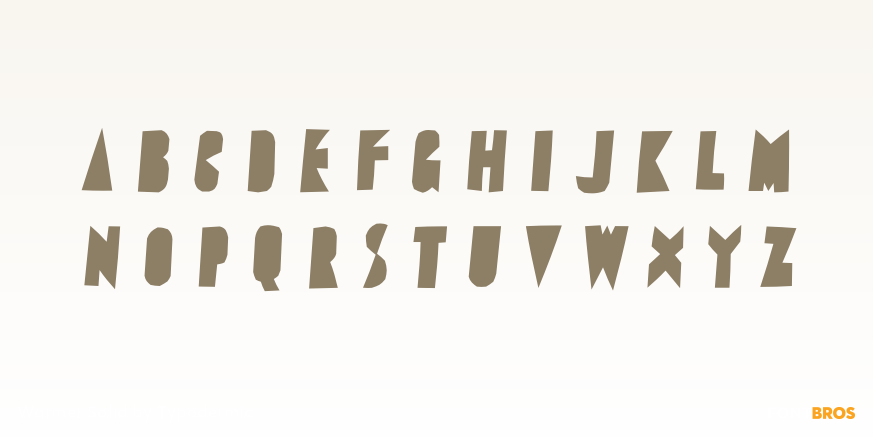
Warmer Solid
Warmer Solid supplies the complete filled shapes at the center of the family’s layered plaid system. Its narrow, counterless capitals have a cut-paper or fabric-piece quality, but no internal check pattern, so the alphabet remains clear and graphic on its own. Because the glyphs share their registration with Cross and Check, Solid can also provide the base color beneath either decorative layer or the full three-part woven treatment.
Use Warmer Solid for collection names, apparel graphics, winter campaigns, lodge merchandise, fabric packaging, and supporting titles that need the family’s distinctive silhouette without a busy surface. It is the most dependable choice at smaller display sizes and over detailed imagery. Add Cross and Check in separate colors when a launch, window, or hero graphic needs an integrated plaid effect rather than a plain fill.